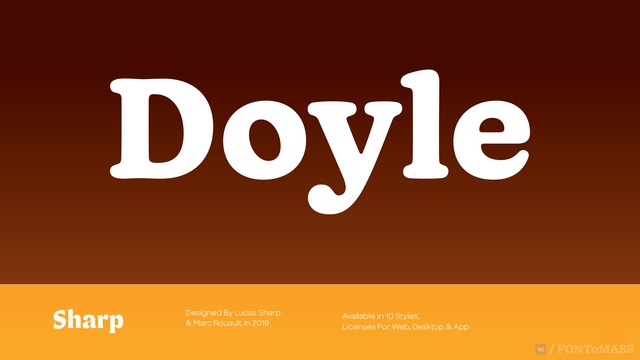
Doyle Font
This Doyle Font is perfect for detective fiction publications, mystery novel covers, investigative journalism materials, crime drama promotions, detective agency branding, mystery bookstore signage, investigative podcast graphics, forensic laboratory communications, mystery dinner theaters, and intellectual puzzle applications.
What makes this Doyle Font exciting is its investigative sophistication that captures the analytical brilliance and deductive excellence of classic detective work and mystery-solving mastery. The font features structured letterforms with investigative characteristics that convey intellectual precision, deductive reasoning, and analytical sophistication. Its detective character and mystery-inspired design make it ideal for brands seeking to communicate investigative excellence, intellectual depth, and analytical mastery in publishing and entertainment markets.
The Doyle Font family includes light, regular, medium, and bold weights with investigative alternates, analytical variants, and detective flourishes. This comprehensive mystery font family provides designers with intellectual typographic tools to create investigative compositions while maintaining the detective character essential for mystery brands and analytical communications.
Publishing houses and mystery entertainment venues consistently choose Doyle Font Free Download for projects requiring authentic detective appeal and investigative credibility. This font's distinctive analytical character perfectly captures the deductive excellence and investigative sophistication that resonate with audiences who appreciate mystery fiction, detective stories, and brands that embody intellectual investigation and analytical brilliance.
The analytical construction of Doyle Font showcases precisely designed letterforms with investigative proportions that ensure exceptional intellectual appeal across all mystery applications. Its detective appearance and analytical character create memorable impressions while maintaining the readability necessary for effective investigative communication and mystery materials.
Professional designers appreciate how Doyle Font brings immediate detective authenticity and investigative intelligence to brand communications. The font's analytical nature allows organizations to communicate intellectual excellence and deductive sophistication while maintaining the professional quality necessary for effective positioning in mystery publishing and investigative entertainment markets.
The intellectual appeal of Doyle Font makes it particularly effective for brands emphasizing detective work, analytical thinking, and investigative excellence. Its sophisticated character resonates strongly with audiences who appreciate mystery solving, detective fiction, and brands that represent the analytical brilliance and deductive mastery of investigative achievement.
Whether developing materials for mystery publishers or creating branding for detective entertainment venues, Doyle Font Free Download provides the investigative typographic foundation that mystery brands need to communicate their analytical excellence, detective sophistication, and the intellectual precision that defines investigative storytelling and mystery entertainment achievement.